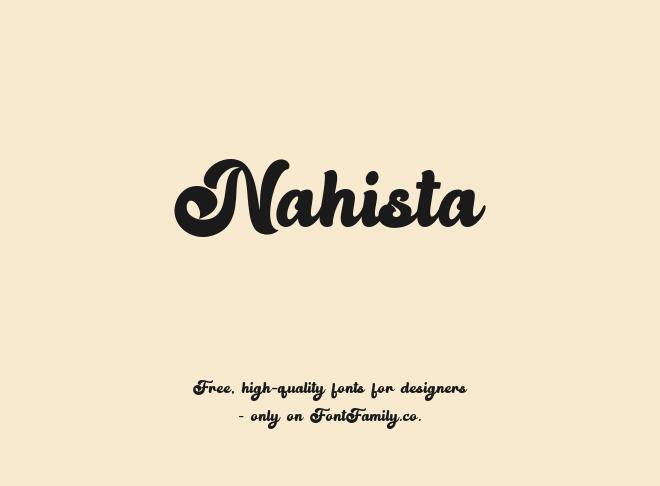
Nahista Font
Nahista Font is a modern, elegant, and handwritten style typeface that is perfect for designers who want to add a touch of sophistication to their projects. Meticulously crafted by Creative Foundry, Nahista Font stands out with its unique, decorative style, making it a great choice for branding, logo designs, invitations, and more. Its stylish, handwritten appeal is reminiscent of custom lettering, offering a personalized touch with a modern twist. Nahista Font is a free font for personal use, making it a cost-effective option for designers. Its distinctive character and charm make it a must-have addition to any font collection.